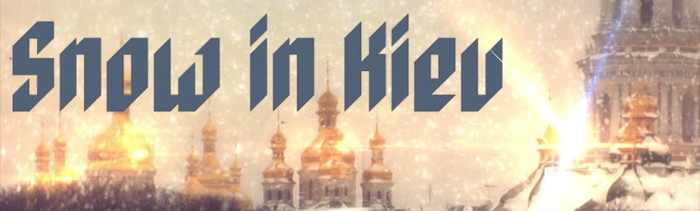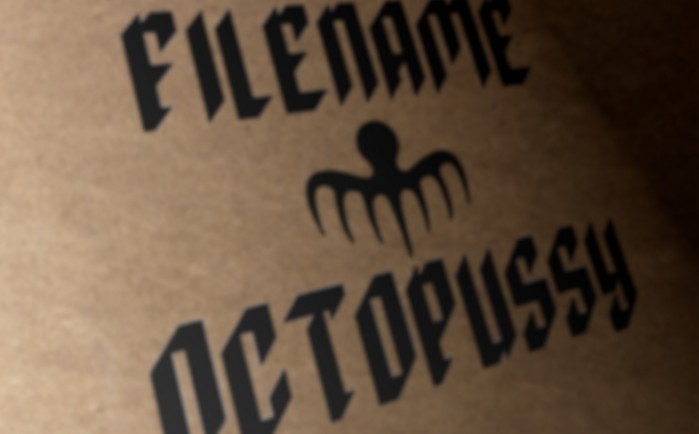
•   I'm working to convert it in my "two layered" first font. WIP. PS: Two layered colour version here
I'm working to convert it in my "two layered" first font. WIP.
Nice! I like it. :)
Great calligraphy :)
Another point of view: